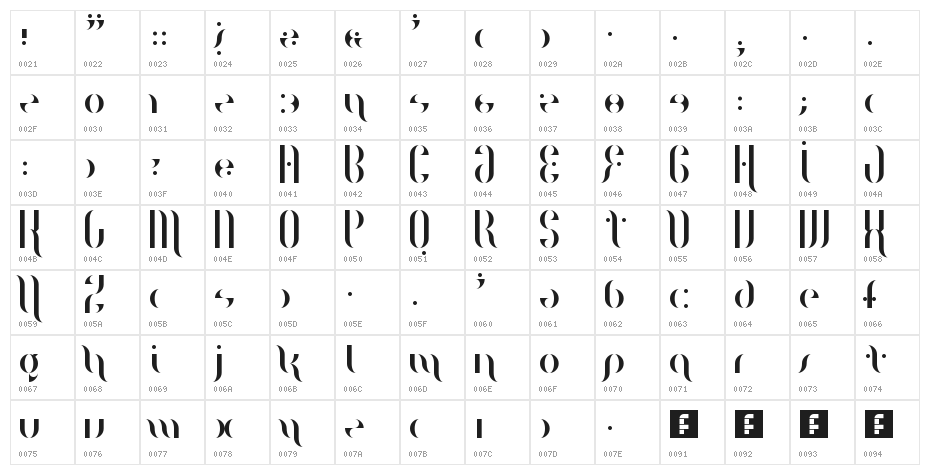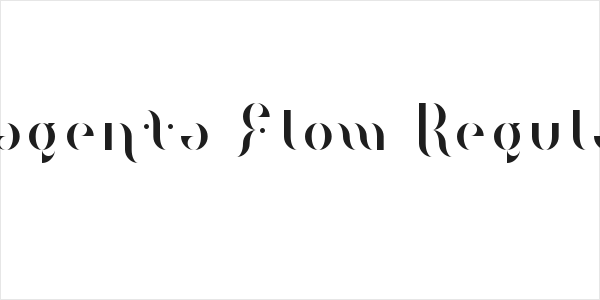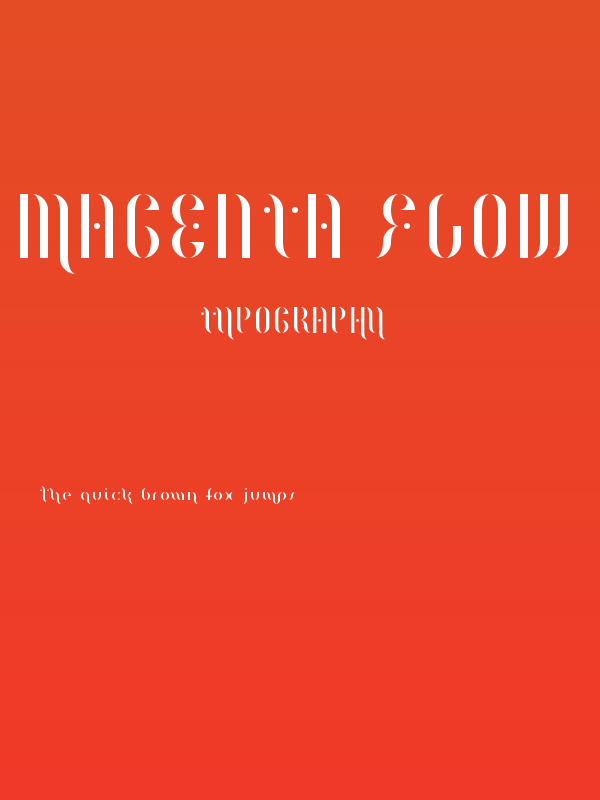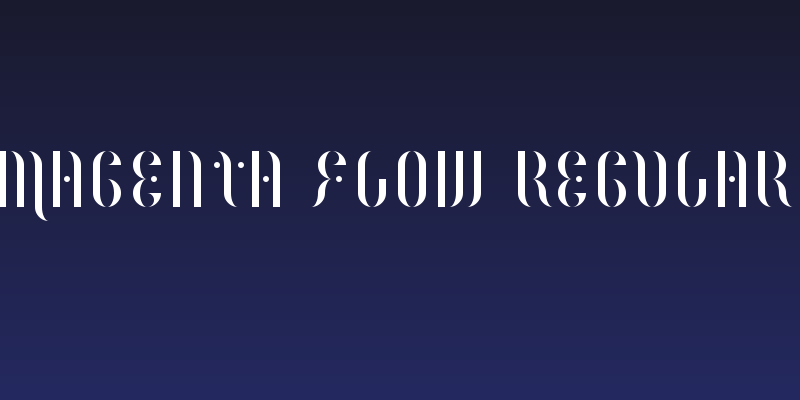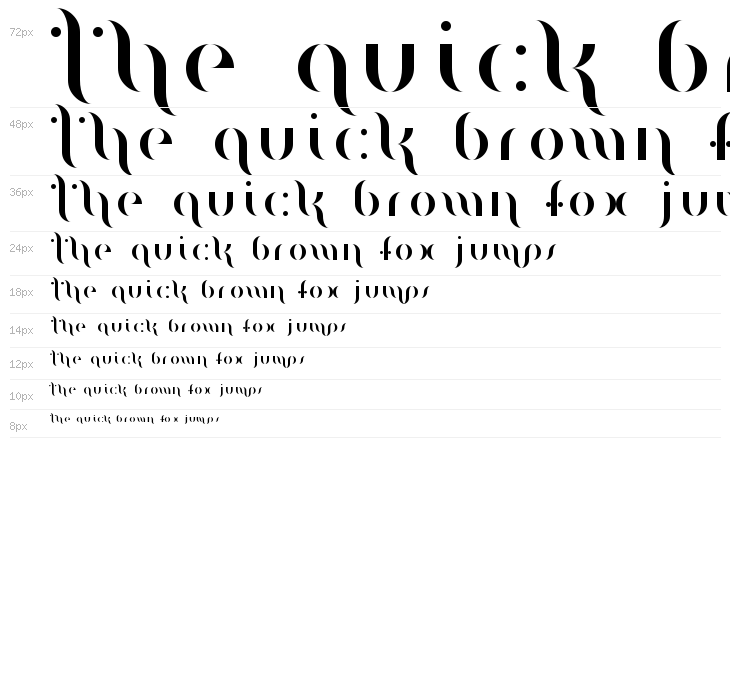
Magenta Flow Regular Font
Magenta Flow Regular Description
This font features a highly stylized and modern design with a unique blend of geometric and abstract elements. The characters are composed of bold, sweeping curves and sharp angles, creating a striking visual impact. The use of negative space is prominent, adding to the font's artistic flair. Each letter is distinct, yet they all share a cohesive aesthetic that is both futuristic and elegant. The font's design is reminiscent of art deco influences, with a contemporary twist that makes it suitable for modern applications. Its bold appearance and high contrast make it ideal for attention-grabbing headlines and logos.
| Proposed Projects | Ideal for branding, logo design, magazine covers, and posters where a modern and artistic touch is desired. |